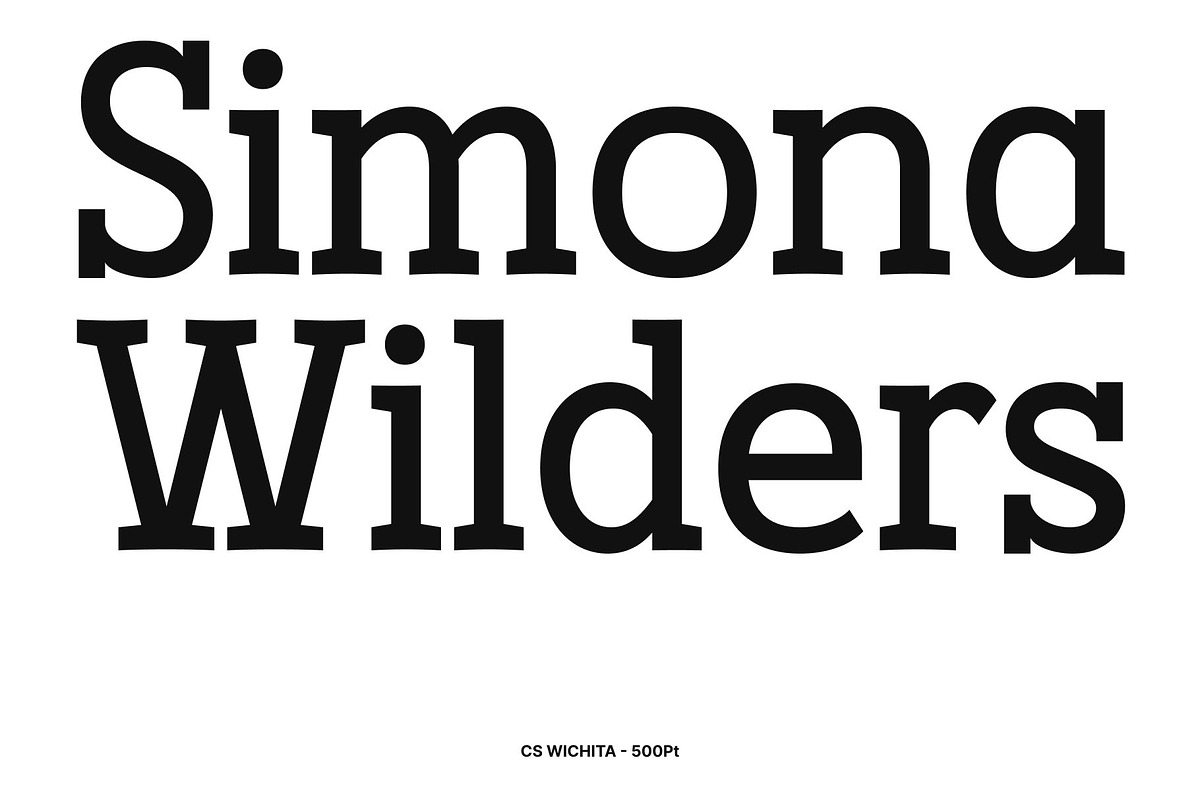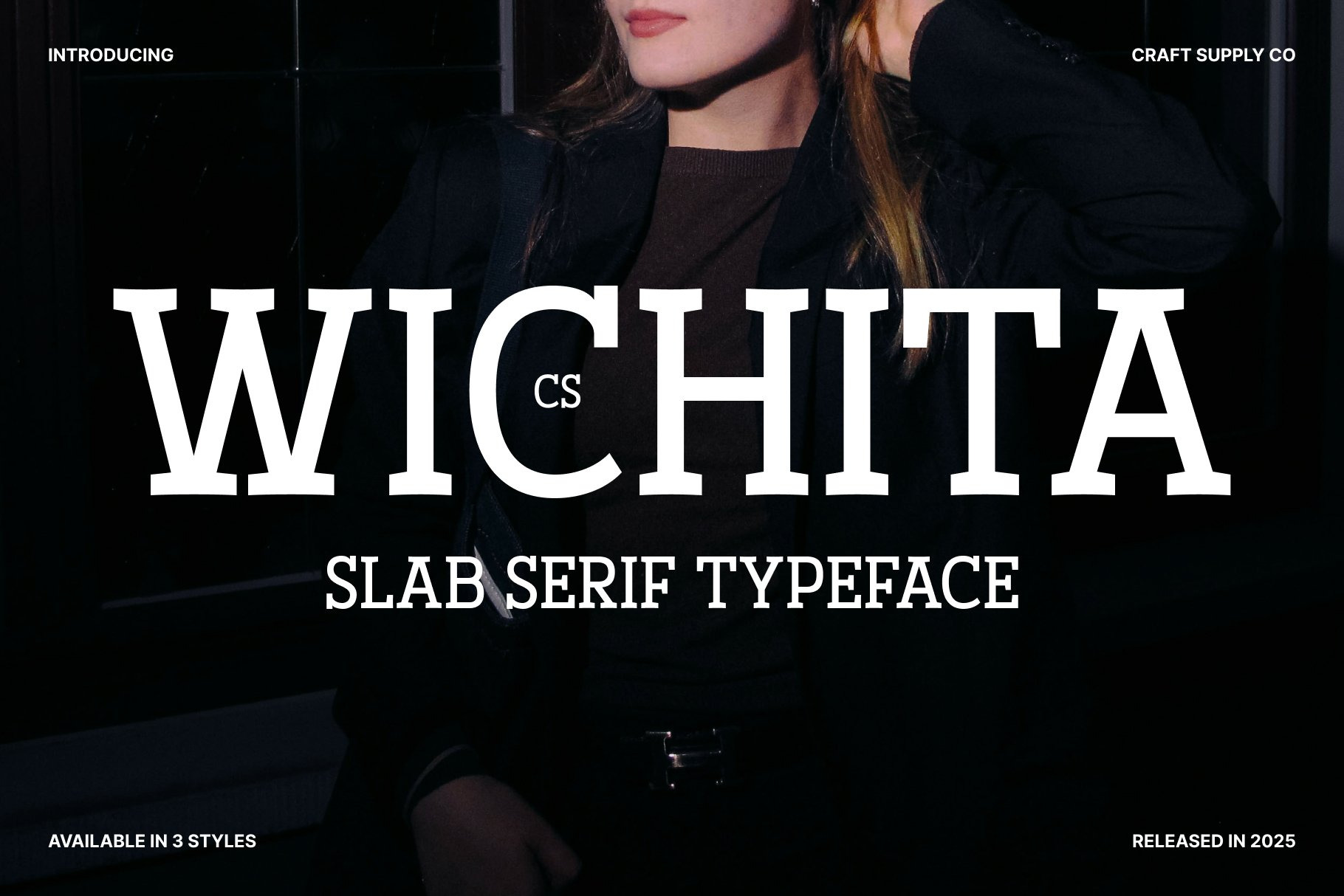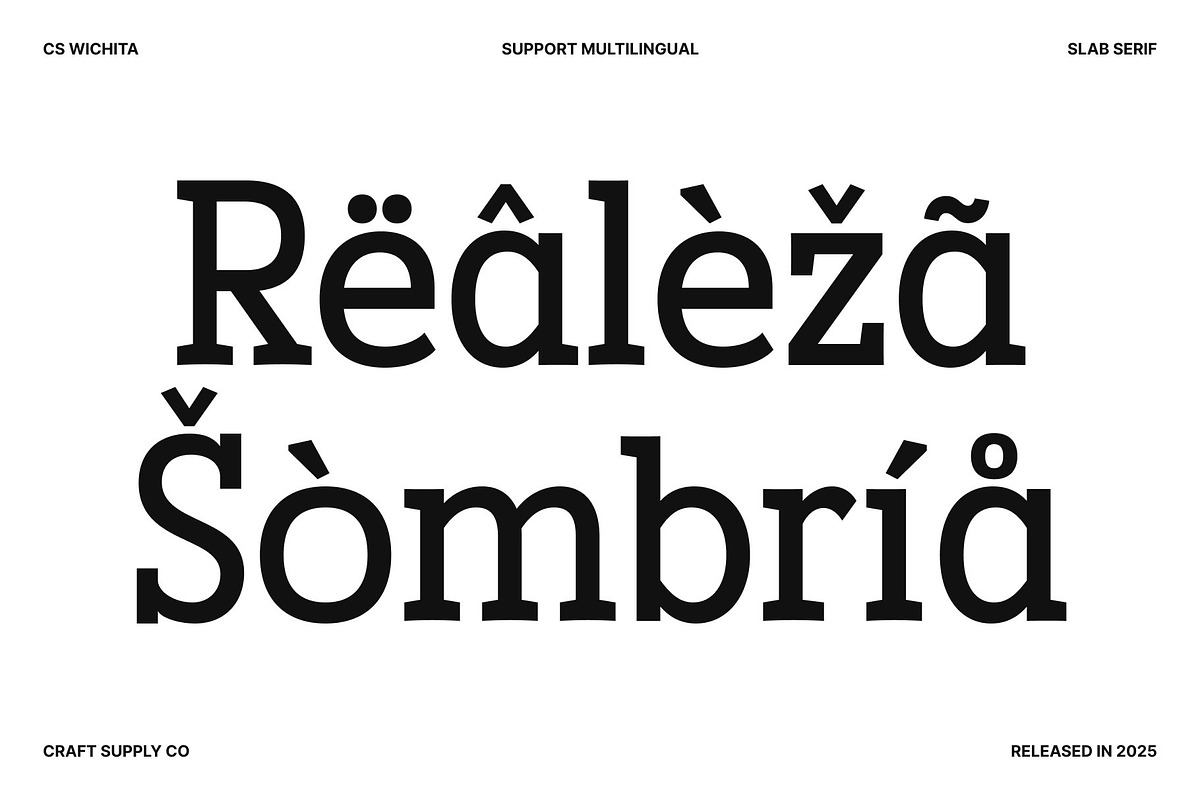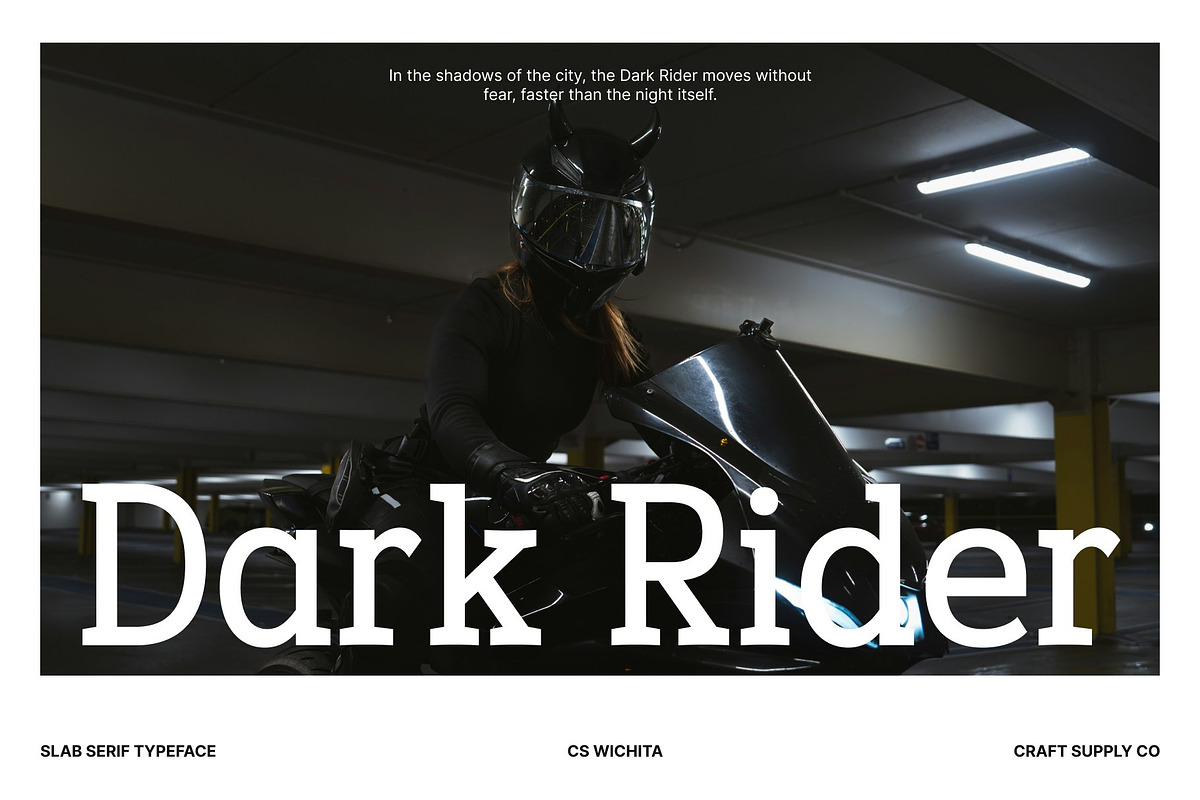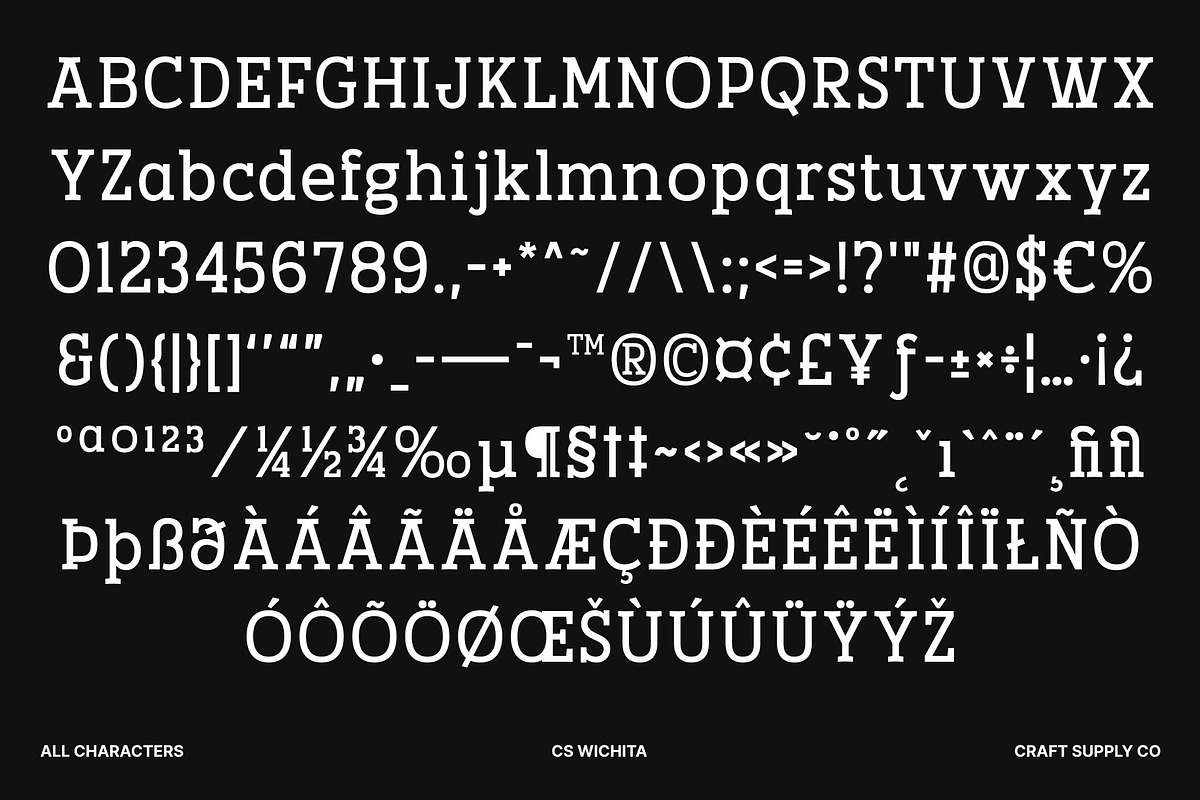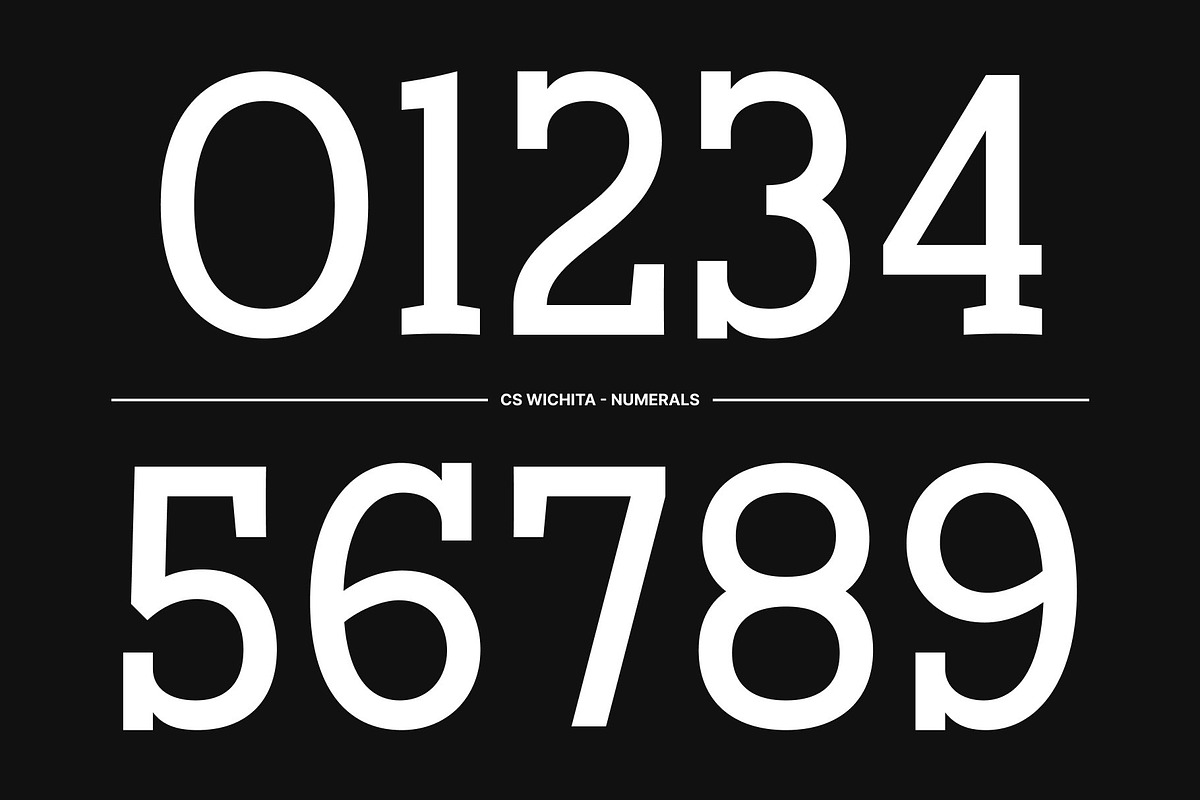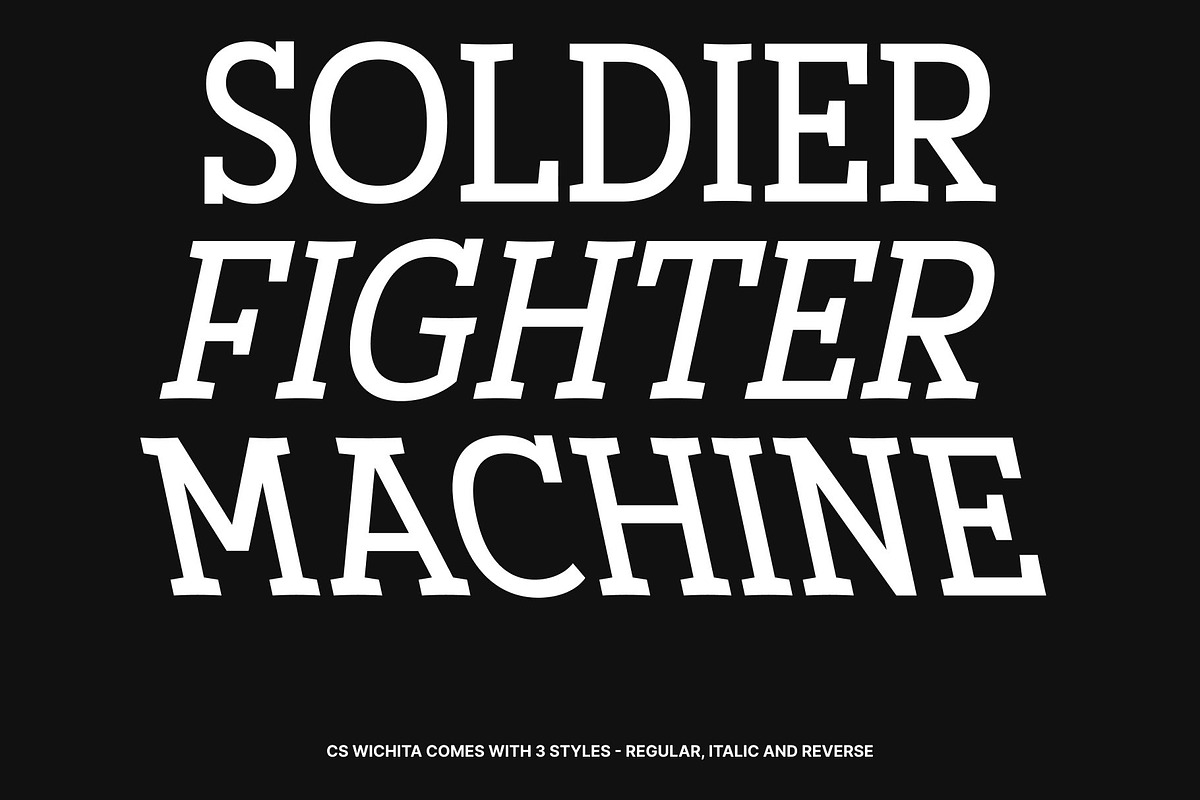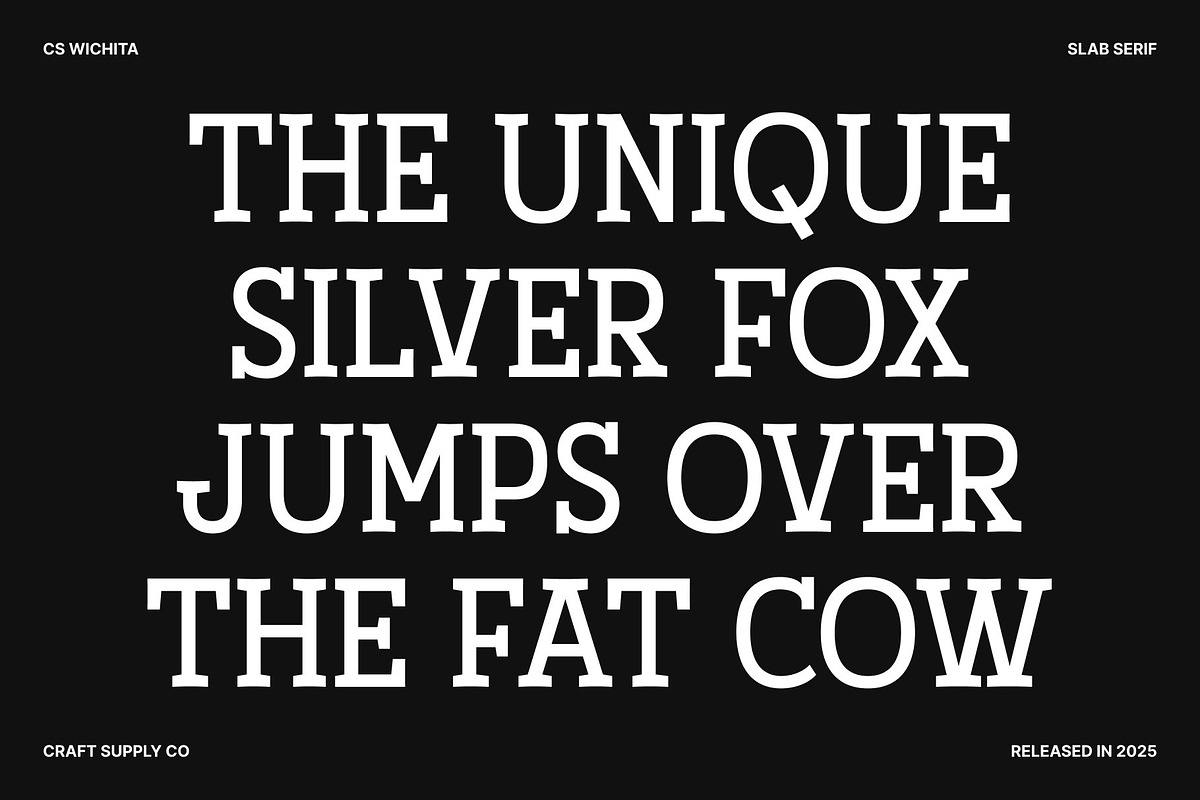
CS Wichita – Slab Serif Font
CS Wichita – Clean Slab Serif Font with Clear Modern Character
Modern Slab Serif Display Font This is a slab serif font designed to deliver a clean, and confident visual impression. Featuring sturdy slab serifs and well-balanced letterforms, this typeface combines strength with clarity, making it highly effective for modern design needs. Its structured appearance ensures excellent readability while maintaining a contemporary and professional tone.
Clean Letterforms with Solid Construction Each character in this font is crafted with precise proportions and consistent strokes, creating a neat and organized typographic rhythm. The slab serifs add visual stability without overwhelming the design, resulting in a font that feels strong yet refined. This clean construction allows the typeface to communicate clearly across both display and editorial contexts.
Modern Style with Timeless Appeal This font bridges classic slab serif foundations with modern aesthetics. Its straightforward design avoids excessive decoration, allowing the font to feel fresh, versatile, and long-lasting. This balance makes it suitable for a wide range of creative directions, from minimalist modern layouts to bold visual compositions.
Versatile for Titles, Posters, and Editorial Use Designed for flexibility, performs beautifully in book titles, poster designs, modern branding, and editorial layouts. Its clarity and solid presence help text remain legible and impactful, whether used at large display sizes or in structured compositions. This font offers a dependable typographic solution for designers seeking a slab serif font that delivers cleanliness, readability, and modern visual confidence.
- CS Wichita Regular
- CS Wichita Italic
- CS Wichita Reverse Italic